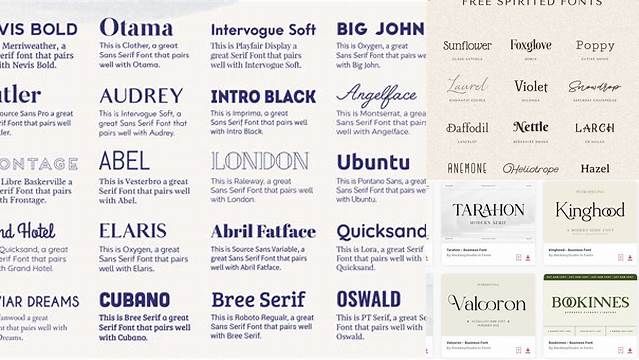
Best Free Fonts Similar To Editorial Designs
Hey guys! Ever been captivated by the sleek, polished look of a magazine or a beautifully designed book? That editorial feel comes largely from the fonts they use. But those fonts can sometimes be pricey! So, we're diving into the world of editorial new similar free font options. Let's explore how you can achieve that high-end design aesthetic without breaking the bank. We’ll be covering a ton of ground, from understanding what makes a font “editorial” to showcasing some killer free alternatives you can use right away. Get ready to elevate your design game!
Understanding Editorial Fonts
What exactly makes a font “editorial”? Well, it’s more than just looking pretty. Editorial fonts need to be highly legible, sophisticated, and often have a timeless quality. They need to work beautifully in headlines, body text, and captions, creating a harmonious and engaging reading experience. Think about your favorite magazines – the fonts used likely have a certain elegance and clarity that draws you in. We're talking about fonts that have a strong personality without being distracting. This is crucial, as editorial design is all about guiding the reader's eye through the page and making the content accessible and enjoyable. Editorial fonts are the unsung heroes of great layouts, silently working to enhance the overall impact of the publication. Remember, the best editorial designs use fonts that complement the content, not compete with it. This means carefully considering the mood and tone you want to convey, and selecting fonts that align with that vision. Think of it like choosing the perfect outfit for an occasion – the right font can make all the difference. So, before we jump into the free options, let's really nail down what we're looking for in an editorial new similar free font. We need fonts that are versatile, legible, and have that touch of sophistication that will make your designs shine. Let's keep that in mind as we explore the possibilities!
Why Look for Free Alternatives?
Let's be real, premium fonts can be seriously expensive. For independent designers, students, or anyone on a budget, finding a great editorial new similar free font is a total game-changer. You get to explore different styles, experiment with typography, and create stunning designs without emptying your wallet. Plus, the world of free fonts has exploded with amazing options in recent years! There are tons of talented designers and foundries releasing high-quality fonts that you can use for personal or commercial projects. This means you no longer have to compromise on quality just because you're not paying top dollar. Free fonts also offer a fantastic opportunity to learn about typography and font pairing. You can download a bunch of different fonts and try them out in various contexts, seeing what works and what doesn't. It's a hands-on way to develop your design skills and find your own unique style. And let's not forget the sheer excitement of discovering a hidden gem – that perfect editorial new similar free font that elevates your project to the next level. It's like finding a stylish vintage piece at a thrift store! So, buckle up, because we're about to uncover some incredible free font alternatives that will help you achieve that polished editorial look you're after. It's all about smart resourcefulness and knowing where to look. And we're here to guide you every step of the way.
Criteria for Selecting Editorial Fonts
Before we dive into the list, let's set some ground rules. What makes a font suitable for editorial design? Legibility is key, guys! The font needs to be easy to read in both headlines and body text. Think clean lines, balanced letterforms, and sufficient spacing. No one wants to squint their way through an article. Secondly, sophistication is crucial. Editorial fonts often have a timeless elegance, a touch of class that elevates the overall design. Think classic serifs and clean sans-serifs with subtle details. We're not looking for anything too flashy or trendy here. Versatility is another important factor. The font should work well in different sizes and contexts, from bold headlines to small captions. It should also pair well with other fonts, giving you flexibility in your design. Finally, personality matters. While legibility and sophistication are essential, the font should also have its own unique character. It should reflect the tone and style of your publication or project. Is it serious and authoritative? Playful and quirky? The font should communicate that feeling effectively. So, keep these criteria in mind as we explore our editorial new similar free font options. We're looking for fonts that tick all the boxes – legible, sophisticated, versatile, and with a distinct personality. It's a tall order, but trust us, there are plenty of free fonts out there that fit the bill. Let's get started!
Serif vs. Sans-Serif for Editorial Use
Ah, the age-old debate: serif or sans-serif? Both have their place in editorial design, and the choice often depends on the specific project and the overall aesthetic you're aiming for. Serif fonts, with their little